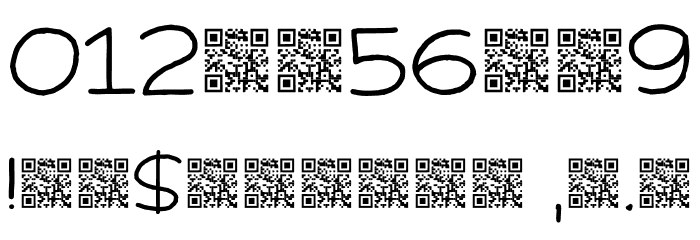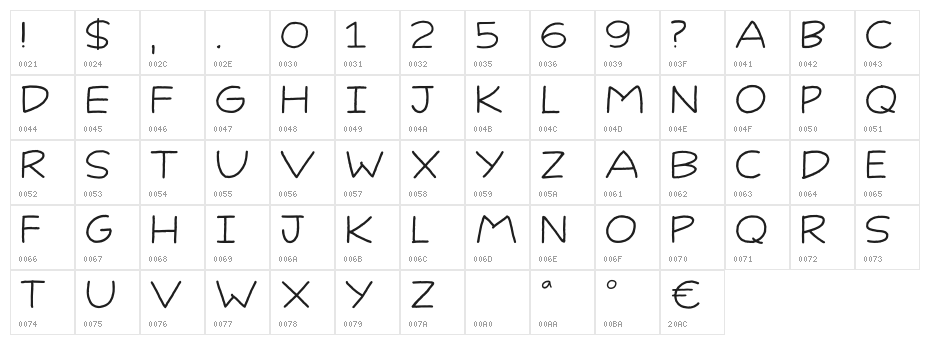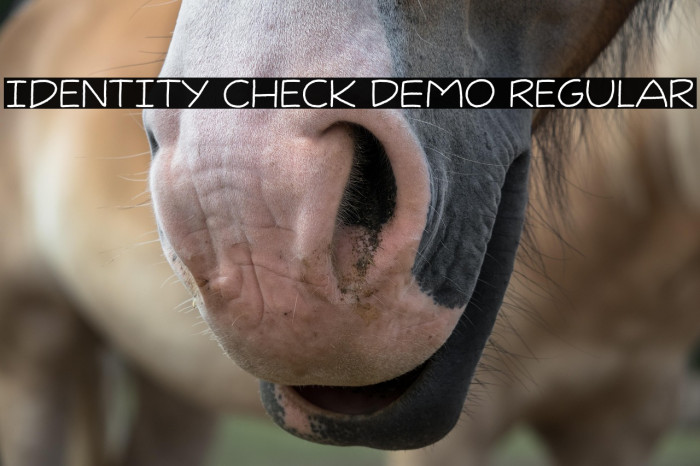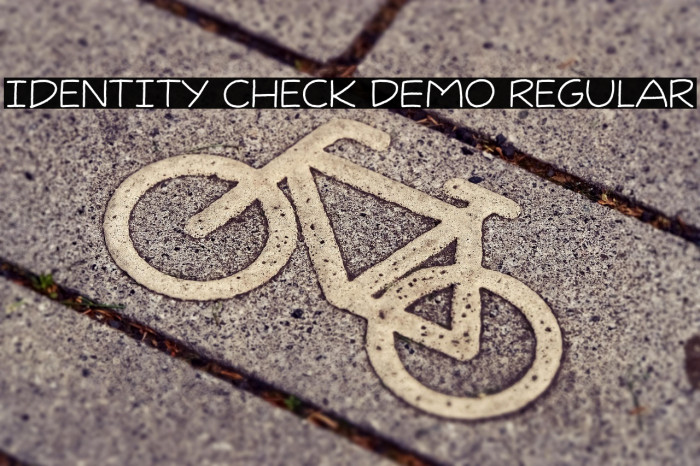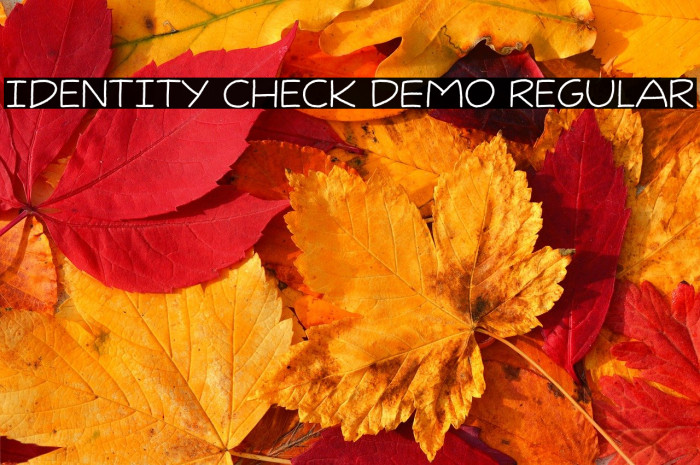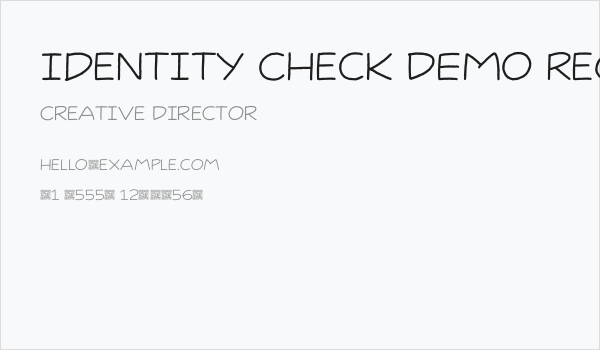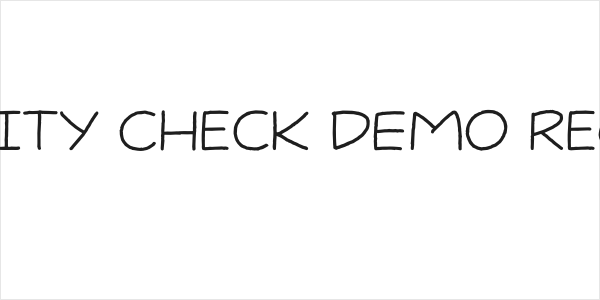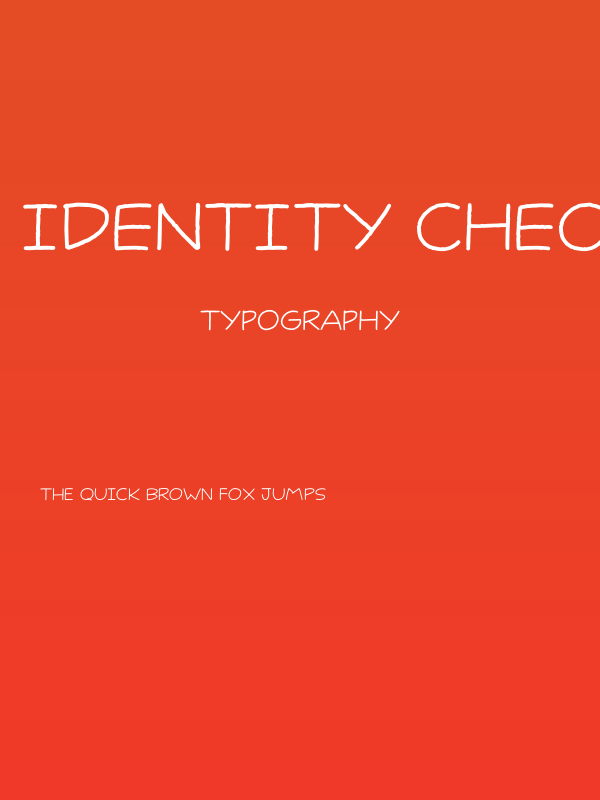
Identity Check DEMO Regular Font
Identity Check DEMO Regular Description
This font features a handwritten style with a casual and informal appearance. The letters are slightly irregular, giving them a natural, human touch. The uppercase and lowercase characters maintain a consistent style, with rounded edges and a slight slant that adds to the relaxed feel. The numbers follow the same design principles, ensuring uniformity across all characters. Special characters are included, maintaining the same playful and approachable aesthetic. This font is ideal for projects that require a personal or friendly tone, such as invitations, greeting cards, or creative branding.
| Use Case | Headlines, Logos, Informal text |
| Proposed Projects | Ideal for invitations, greeting cards, personal branding, and creative projects. |